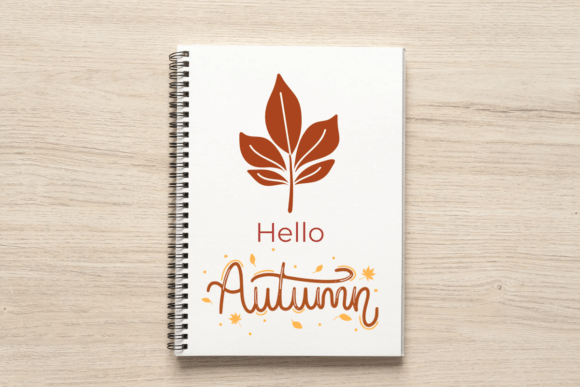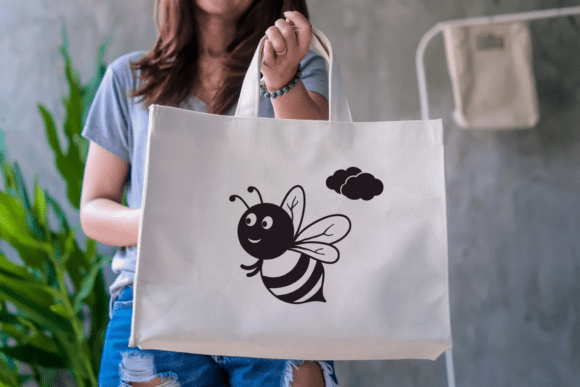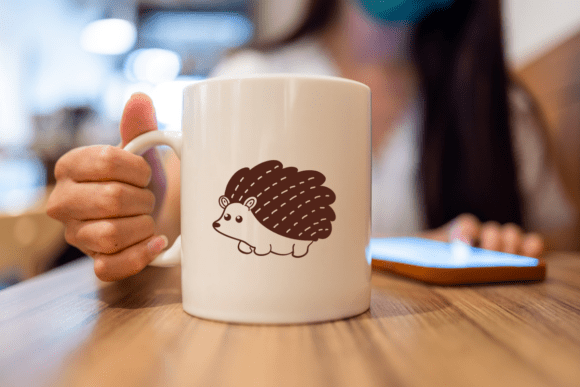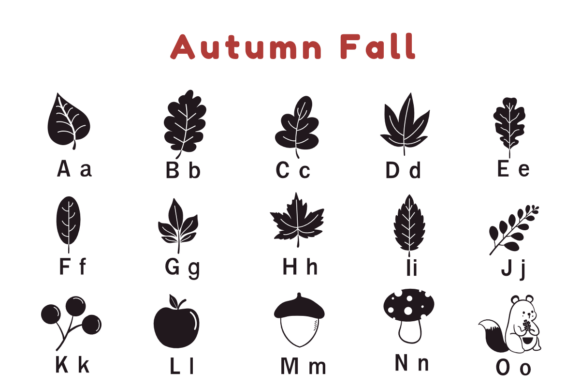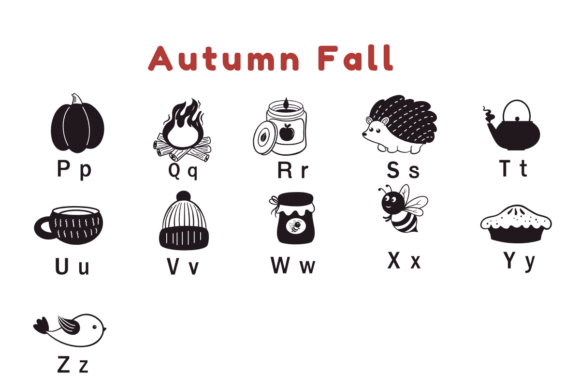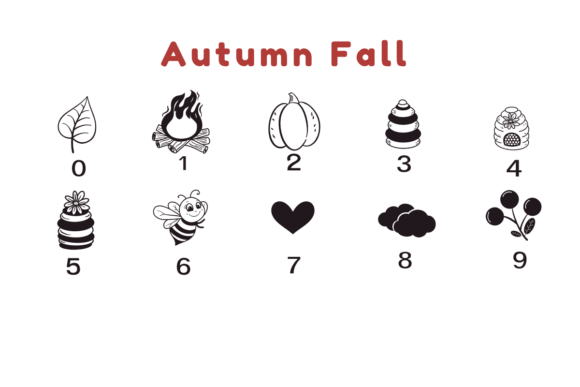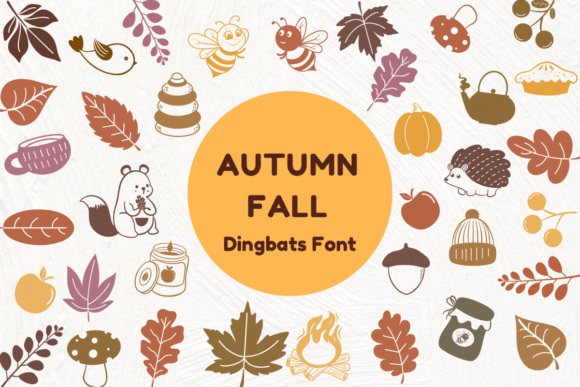
Cozy Up with Autumn Fall Font: A Seasonal Dingbat Delight
As a designer, I’ve had my fair share of autumn-themed projects. From crafting cozy greeting cards to creating seasonal decor, I’ve always been on the lookout for the perfect font to capture the warmth and whimsy of fall. Recently, I stumbled upon the charming Autumn Fall Dingbats Font, and I just can’t get enough of it! 🍁
A Design Moment of Frustration and Delight
I recall working on a project for a client who wanted a custom autumn-themed sticker sheet. I was struggling to find the right font that would bring the season to life. That’s when I discovered the Autumn Fall Dingbats Font. Its delightful collection of illustrations, from leaves and acorns to cozy mugs and woodland animals, instantly resonated with me. It was as if the font was tailor-made for my project! 🎉
- ✅ The font’s charming illustrations are perfect for autumn-themed designs, adding a playful, hand-drawn touch.
- ✅ The dingbat set is incredibly versatile, suitable for various creative projects, including craft projects, greeting cards, stickers, scrapbooking, and seasonal decor.
- ✅ The illustrations are high-quality, making them suitable for both digital and print projects.
- 🤔 Some of the illustrations might be a bit too whimsical for very formal or professional designs.
- ⚠️ The font might not be suitable for very small text sizes, as the illustrations might become too intricate or difficult to read.
The Designer Inspiration Behind Autumn Fall Font
The Autumn Fall Font was created by a talented designer who wanted to capture the warmth and coziness of the fall season. Inspired by the changing leaves, crisp air, and seasonal traditions, the designer carefully crafted each illustration to bring the magic of autumn to life. Whether you’re a designer, crafter, or creative hobbyist, this font is sure to become a favorite in your collection.
| What type of projects is Autumn Fall Font suitable for? | Autumn Fall Font is perfect for craft projects, greeting cards, stickers, scrapbooking, seasonal decor, and more. |